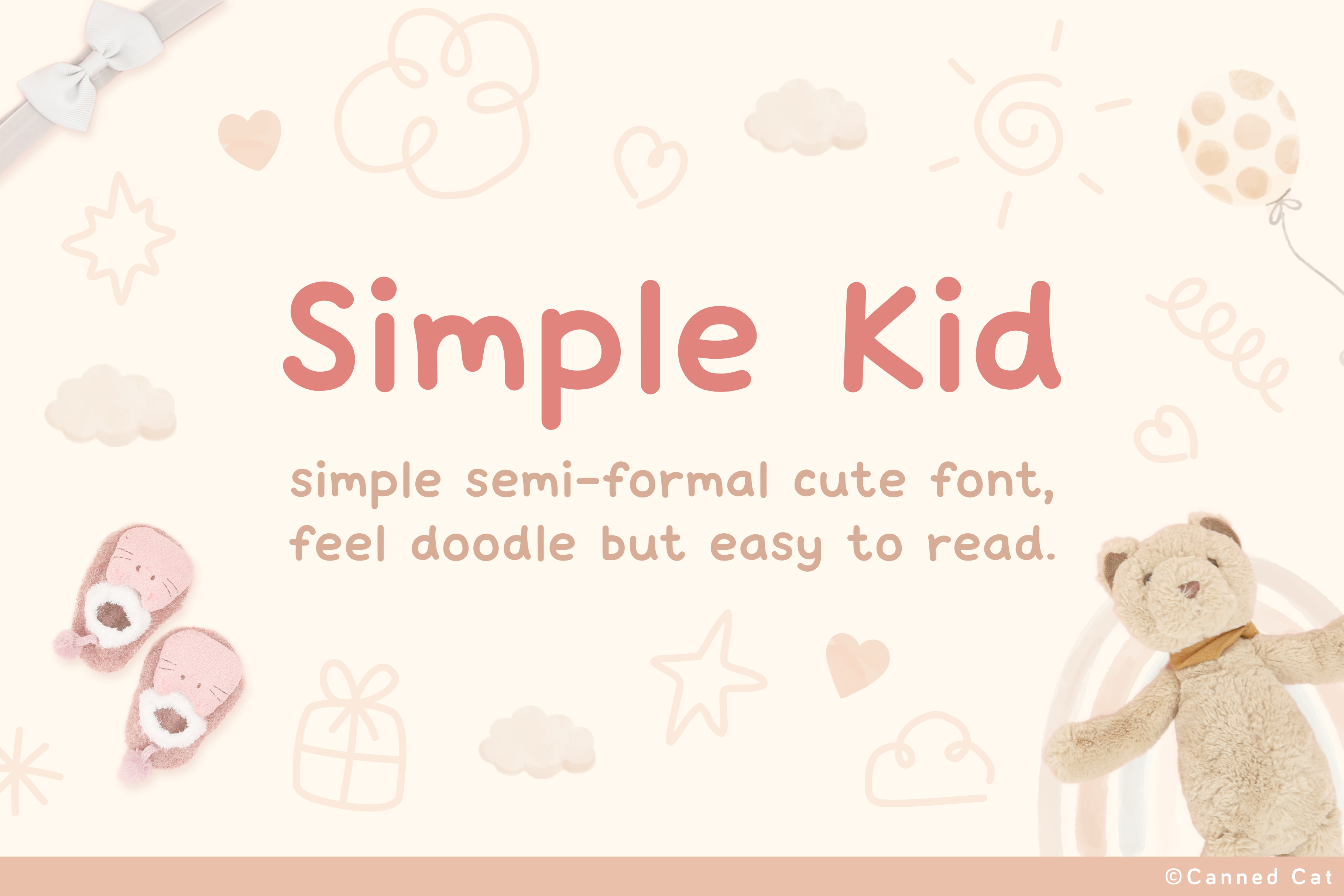
Simple Kid Font
Simple Kid is a sweet cute handwritten font. You'll fall in love with its doodle style, can use it to create adorable kid products, children stationary art, eye-catching baby, boy and girl social media posts, and much more!